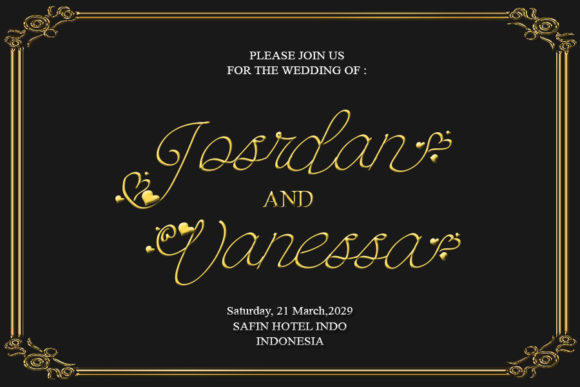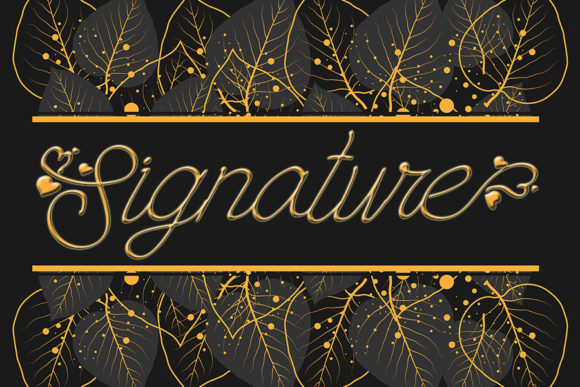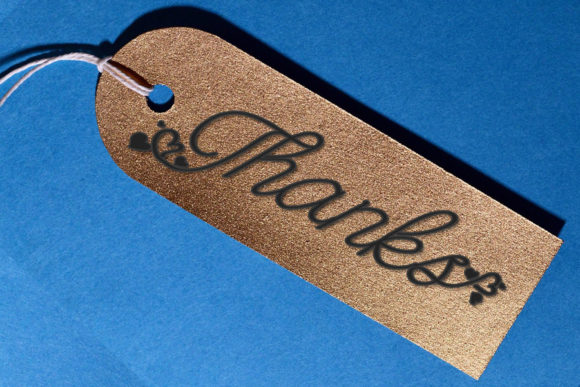
Introduction to Mood Booster Font
Have you ever stared at a blank canvas, feeling uninspired and stuck? It’s a moment we’ve all been in, whether we’re graphic designers, writers, or artists. But what if I told you there’s a secret to unlocking your creativity and taking your work to the next level? Enter the Mood Booster Font, a whimsical script font that’s about to become your new design BFF.
With its relaxed theme and romantic style, the Mood Booster Font is the perfect addition to any designer’s library. Whether you’re working on a high-quality brochure, a creative project, or a social media post, this font is sure to elevate your design and leave a lasting impression. And the best part? It’s available for free download, making it an instant design resource that’s within reach.
Mood Booster Font
- Unique, hand-drawn design ideal for creative projects
- High-quality font with transparent background for easy use in design resources
- Includes 100+ glyphs, making it perfect for a wide range of creative projects
- Perfect for designers and artists looking for a unique, high-quality design resource
Honest Review: Mood Booster Font
I recently stumbled upon the Mood Booster Font while searching for a unique design resource to enhance my creative project. The font is available for a free download, which was a major plus in my book.
One of the things that works well with the Mood Booster Font is its high-quality design. The font has a sleek, modern aesthetic that’s perfect for a variety of projects, from digital marketing materials to social media graphics.
- ✨ Supports transparent background, making it easy to integrate with any design element
- ⚠️ Limited character set, which may not be ideal for longer blocks of text
- ⚠️ Not suitable for print materials, as the font may not scale well
Overall, I’m impressed with the Mood Booster Font. While it may have some limitations, its unique design and high-quality aesthetic make it a valuable addition to any designer’s toolkit. If you’re looking for a free design resource to enhance your creative project, I’d definitely recommend giving it a try.
Use the Mood Booster Font in combination with other design elements to create a visually appealing design. Experiment with different font sizes and styles to add depth and interest to your project. Don’t be afraid to get creative and try out new things with the Mood Booster Font.
Common Use Cases for Mood Booster Font
The Mood Booster Font is perfect for a variety of creative projects, including social media graphics, blog posts, and presentations. Use the font to add a touch of personality to your designs and make them stand out from the crowd.